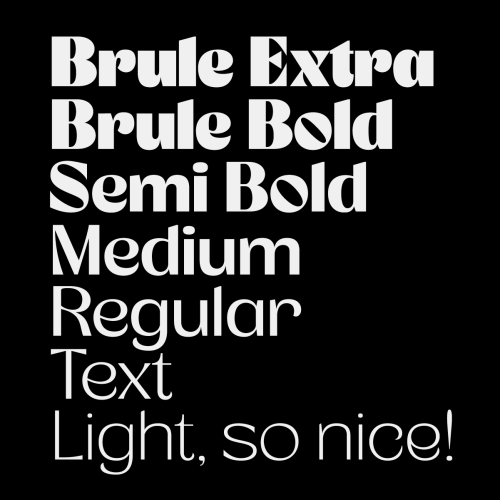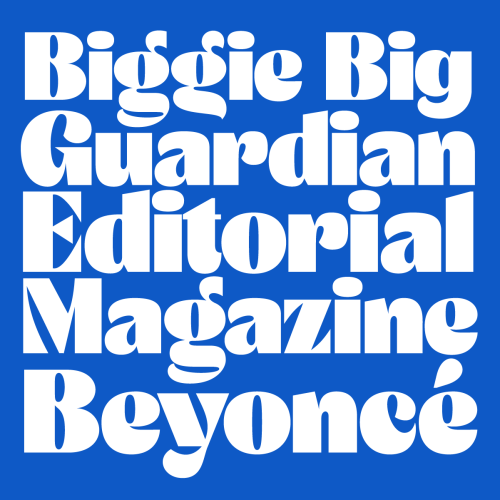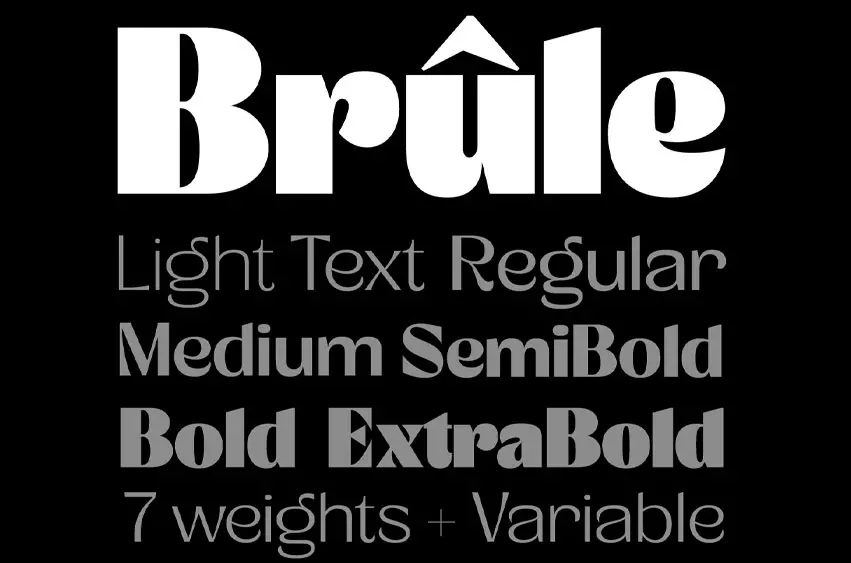
Brule Font
Brule Font is a tribute to the 70’s graphic design era, a nostalgic blast of flavour that brings life and character to your designs. This juicy, iconic typeface is packed with OpenType features, icons, and unique glyphs, which will surely add excitement and sophistication to any project. Whether for packaging, big displays, or other visual communication,
Brule will make your designs pop and stand out. With 9 weights to choose from, you have the versatility to experiment and find the perfect balance for your needs. With the included variable font file in the complete family pack, you can easily tweak and personalize your designs. So don’t miss out on this chance to bring the iconic 70’s aesthetic to your next project with Brule!
Ligatures, Alternates, Icons.
Designed by Andrei Robu.
Brule Font is a Display Fonts font that brings a professional and versatile look to your projects. Brule Font is a tribute to the 70’s graphic design era, a nostalgic blast of flavour that brings life and character to your designs.